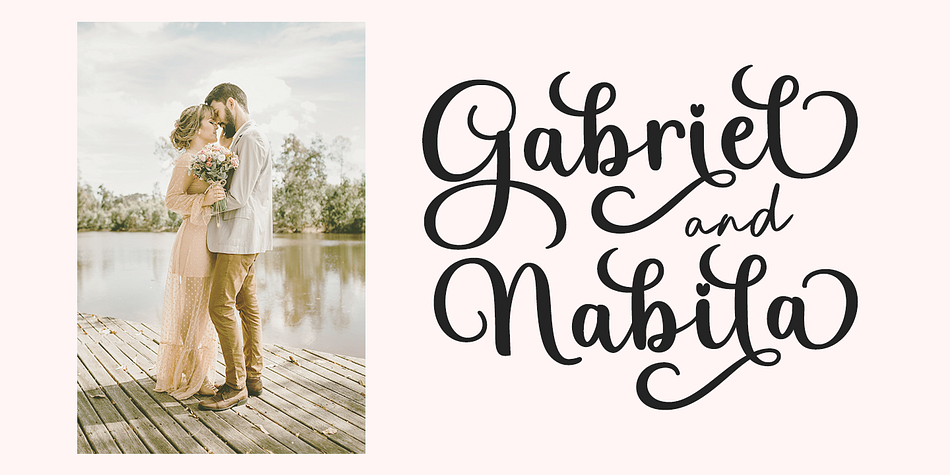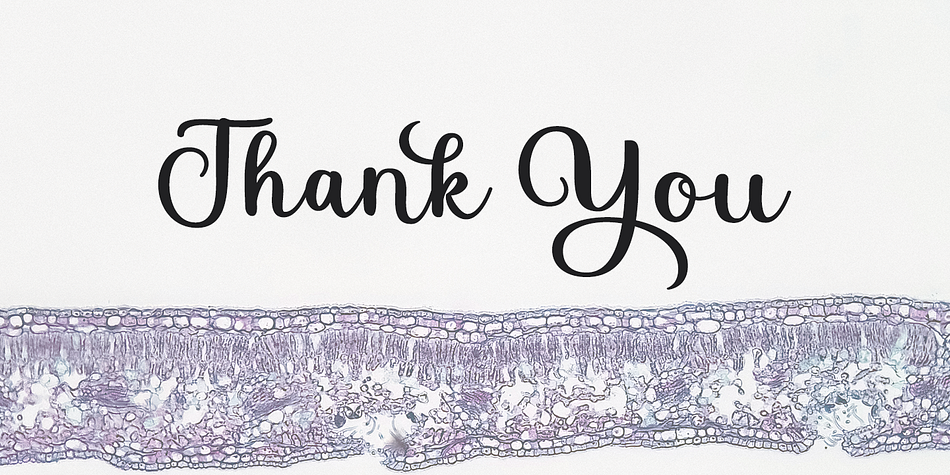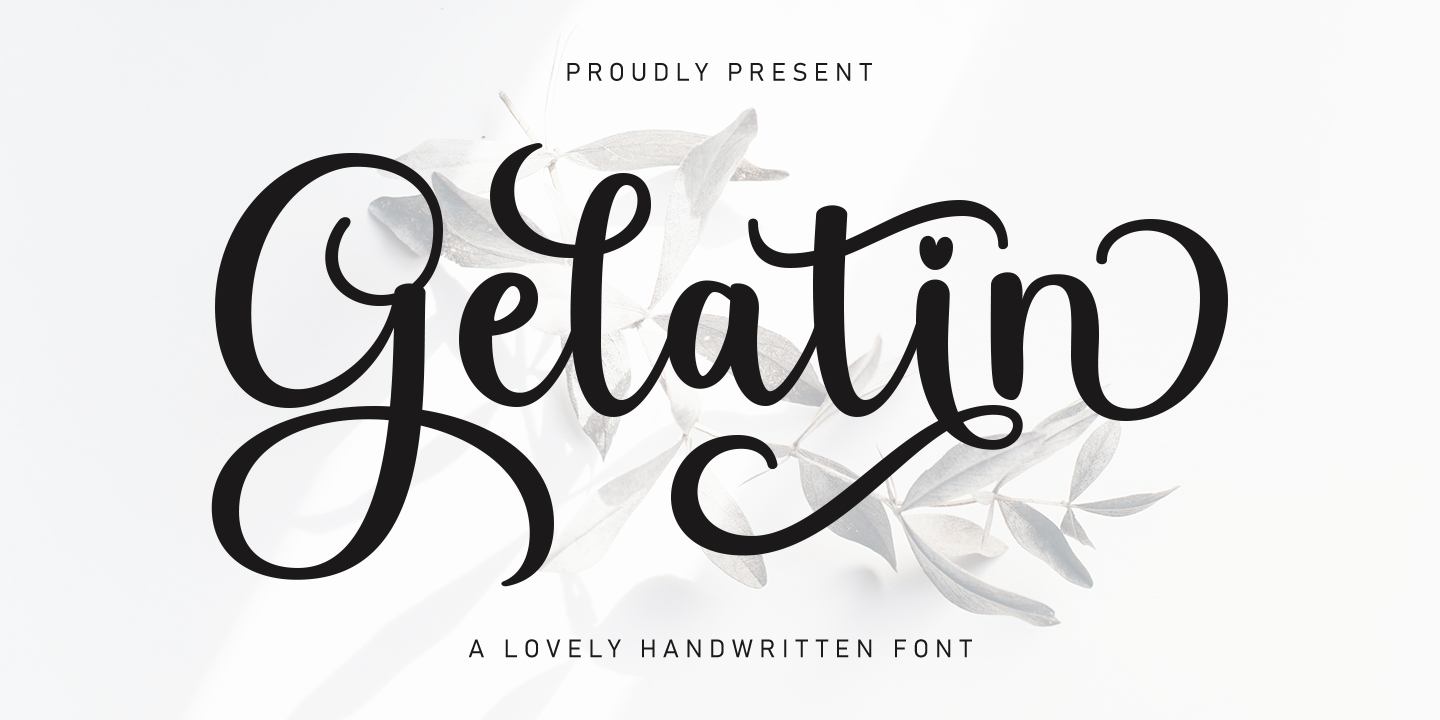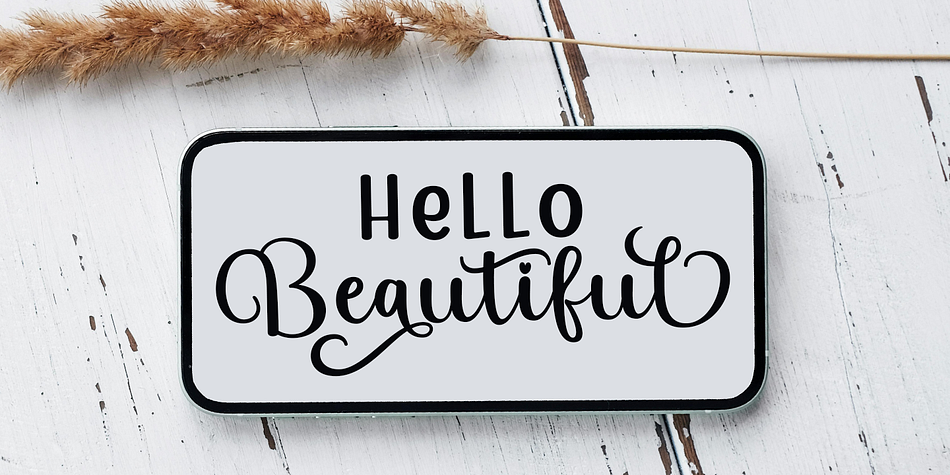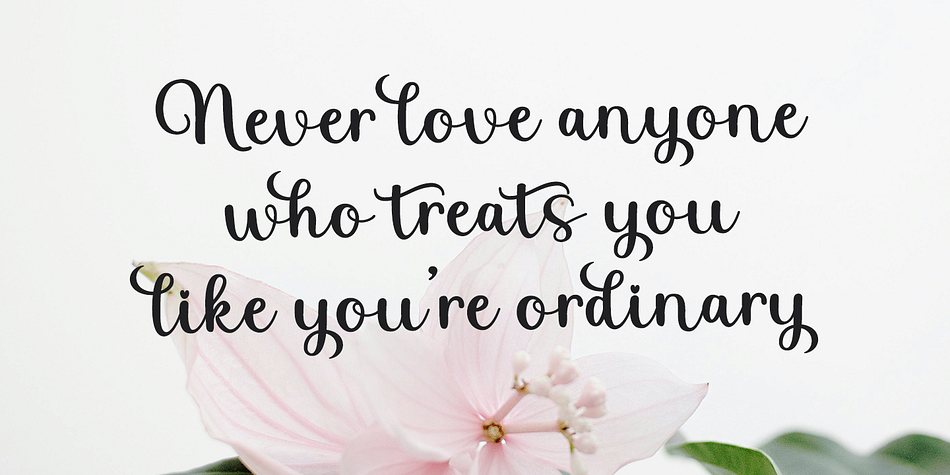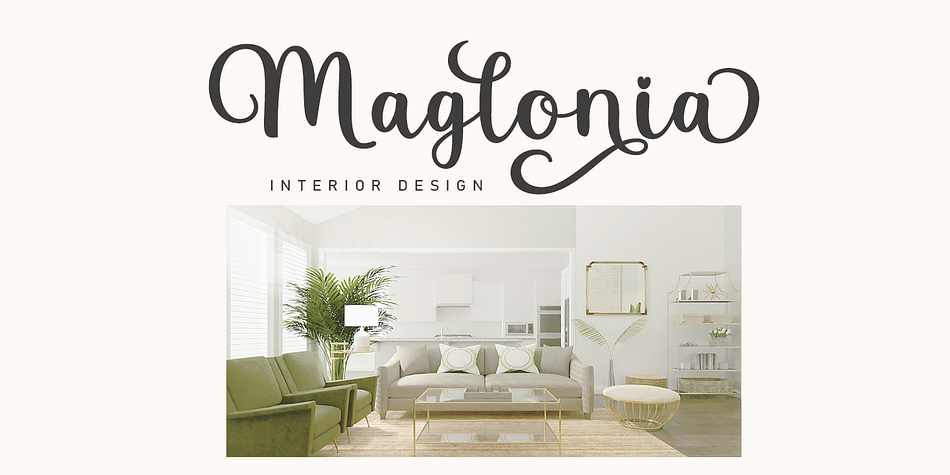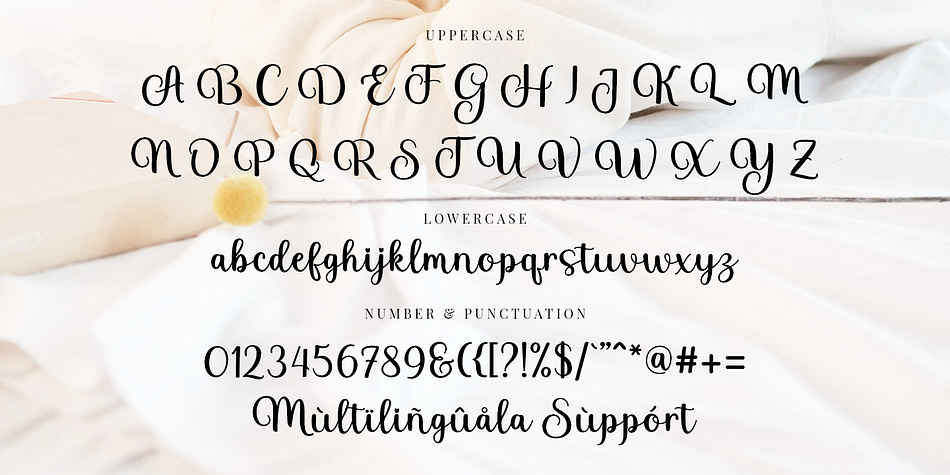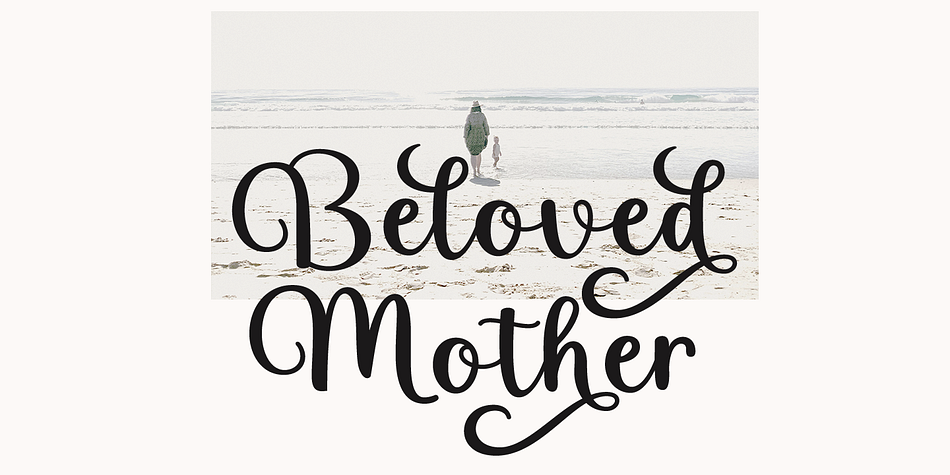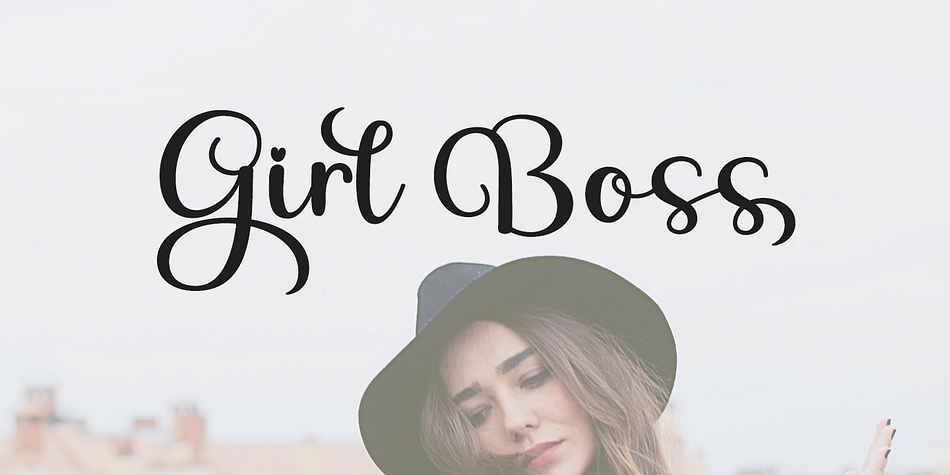
Gelatin
Gelatin is a modern calligraphy font family published by Mega Type.
Gelatin is a lovely handwritten font, modern and classy, which exudes elegance with a modern style. Gelatin is written with care and love which makes it the perfect choice for a variety of design projects.
Gelatin will work perfectly on a variety of your design projects such as branding, logos, wedding invitations, greeting cards, fashion, book covers, posters, labels, quotes and other romantic projects.
Foundry Mega Type